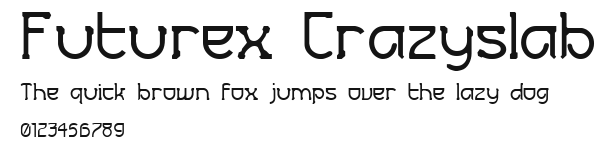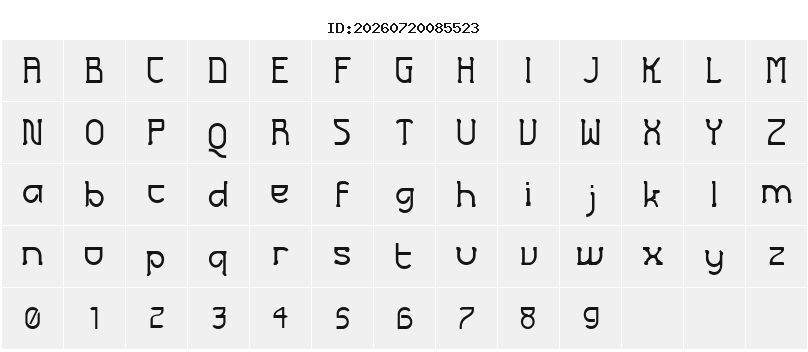
• Font Name: Futurex Crazyslab
• Designer: Misha Shenbrot
• Description: Original work of Apostrophic Lab. remixed by Misha Shenbrot @2000'
About Futurex Crazyslab.ttf
Futurex Crazyslab.ttf is a modern, elegant sans-serif font designed for ultimate readability and visual harmony. Perfect for branding, headlines, web design, and print materials.